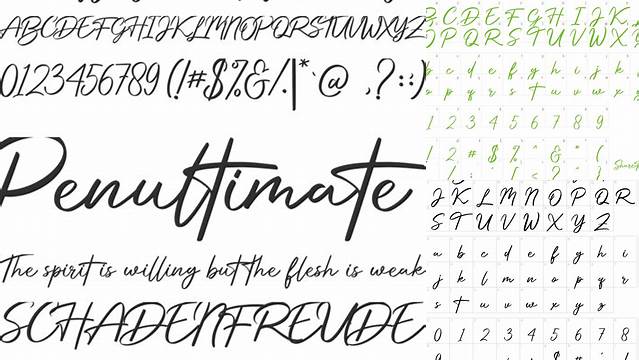
Free Procreate Signature Font Download: A How-To Guide
Hey guys! Are you looking to add a personal touch to your digital artwork? Or perhaps you're working on a project that needs that authentic, handwritten feel? Well, you've come to the right place! In this comprehensive guide, we'll dive deep into the world of Procreate signature regular fonts and how you can download them for free. We'll explore what makes this font style so special, where to find it, and how to use it effectively in your projects. So, grab your stylus, and let's get started!
What Makes Procreate Signature Regular Fonts So Appealing?
When it comes to digital art and design, the font you choose can make or break your project. Procreate signature regular fonts offer a unique blend of elegance and personality that's hard to find in other font styles. These fonts mimic the natural flow and imperfections of handwriting, adding a human touch that can elevate your work from generic to truly special. The appeal of signature fonts lies in their ability to convey authenticity and warmth. They make your text feel more personal, as if it were written by hand. This is especially useful in projects where you want to create a connection with your audience, such as branding materials, invitations, or social media graphics. A well-chosen signature font can instantly add a touch of sophistication and flair. Imagine using a beautiful signature font for your logo, watermark, or even the body text of a digital journal. The possibilities are endless! One of the key reasons why signature regular fonts are so popular is their versatility. They work well in a wide range of projects, from formal documents to casual designs. Whether you're creating a wedding invitation, a business card, or a piece of digital art, a signature font can help you achieve the desired look and feel. Furthermore, Procreate signature fonts often come in various weights and styles, giving you even more flexibility in your designs. You can choose a bold, striking signature font for a strong statement or a delicate, flowing font for a more subtle touch. This adaptability makes them a valuable asset in any designer's toolkit. Ultimately, the appeal of these fonts comes down to their ability to make your work stand out. In a world of perfectly polished, digital typefaces, a signature font offers a refreshing alternative that feels both personal and professional. By choosing the right font, you can instantly add character and charm to your designs, making them more memorable and engaging. So, if you're looking to add a touch of personality to your projects, a Procreate signature regular font might be just what you need!
Where to Find Free Procreate Signature Regular Fonts
Tips for Using Procreate Signature Regular Fonts Effectively
Alright, you've downloaded your free Procreate signature regular fonts, you've installed them in Procreate, and you're ready to start creating some magic. But before you go wild with your new fonts, let's talk about how to use them effectively. Signature fonts are like the secret sauce in your design toolkit – they can add a ton of flavor, but too much can spoil the dish. So, let's dive into some tips and tricks to make sure you're using these fonts to their full potential. First up, consider the context of your project. A signature font might be perfect for a wedding invitation or a hand-lettered quote, but it might not be the best choice for a technical manual or a formal business report. Think about the overall tone and style you're trying to achieve, and choose a font that fits the vibe. If you're working on a project that needs to feel personal and authentic, a signature font can be a great choice. But if you're aiming for a more professional or corporate look, you might want to stick with a more traditional typeface. Next, think about readability. While signature fonts can be beautiful, they're not always the easiest to read. Some signature fonts have lots of flourishes and swashes, which can make them difficult to decipher, especially at smaller sizes. To ensure your text is legible, choose a signature font that's relatively clean and simple. Avoid fonts with overly ornate details or thin, spindly strokes. You can also increase the font size or adjust the letter spacing to improve readability. Another important tip is to use signature fonts sparingly. As I mentioned earlier, too much of a good thing can be a bad thing. Using a signature font for every single element in your design can make it look cluttered and overwhelming. Instead, try using it for headings, subheadings, or other key elements that you want to stand out. For body text, stick with a more legible typeface, such as a sans-serif or serif font. You can also pair your signature font with other fonts to create visual contrast and interest. A classic pairing is a signature font for the heading and a simple sans-serif font for the body text. This combination provides a nice balance between personality and readability. When choosing fonts to pair, look for fonts that complement each other in terms of style and weight. Avoid pairing fonts that are too similar, as this can create a muddy, indistinct look. Finally, don't be afraid to experiment. The best way to learn how to use Procreate signature regular fonts effectively is to try them out in different projects and see what works. Play around with different font sizes, colors, and combinations. You might be surprised at what you discover! With a little practice and experimentation, you'll be able to master the art of using signature fonts and create stunning, personalized designs. So go forth and create!
Conclusion: Unleash Your Creativity with Procreate Signature Fonts
So, there you have it! A comprehensive guide to finding, installing, and using free Procreate signature regular fonts. We've covered everything from what makes these fonts so appealing to where to find them and how to use them effectively in your artwork. Hopefully, you're feeling inspired and ready to add some personal flair to your designs. Remember, the key to using signature fonts is to use them thoughtfully and in the right context. They're a fantastic tool for adding personality and authenticity to your work, but they're not a one-size-fits-all solution. By considering the context of your project, prioritizing readability, and experimenting with different font pairings, you can create stunning designs that truly stand out. The world of digital art and design is constantly evolving, and new fonts are being created all the time. So, keep exploring, keep experimenting, and never stop learning. There's always something new to discover, and your creativity is the only limit. Whether you're a professional designer or a hobbyist artist, Procreate signature fonts can help you take your work to the next level. They allow you to express your unique style and create designs that are truly your own. So, go ahead, download those fonts, and let your imagination run wild. The possibilities are endless! And hey, if you create something amazing with your new signature fonts, be sure to share it with the world! We'd love to see what you come up with. Happy creating, guys! And remember, with the right tools and a little bit of practice, you can achieve anything you set your mind to. So, go out there and make some art that you're proud of. You've got this! This guide should provide you with a solid foundation for working with Procreate signature regular fonts. Now it's time to put your knowledge into practice and start creating! Happy designing!